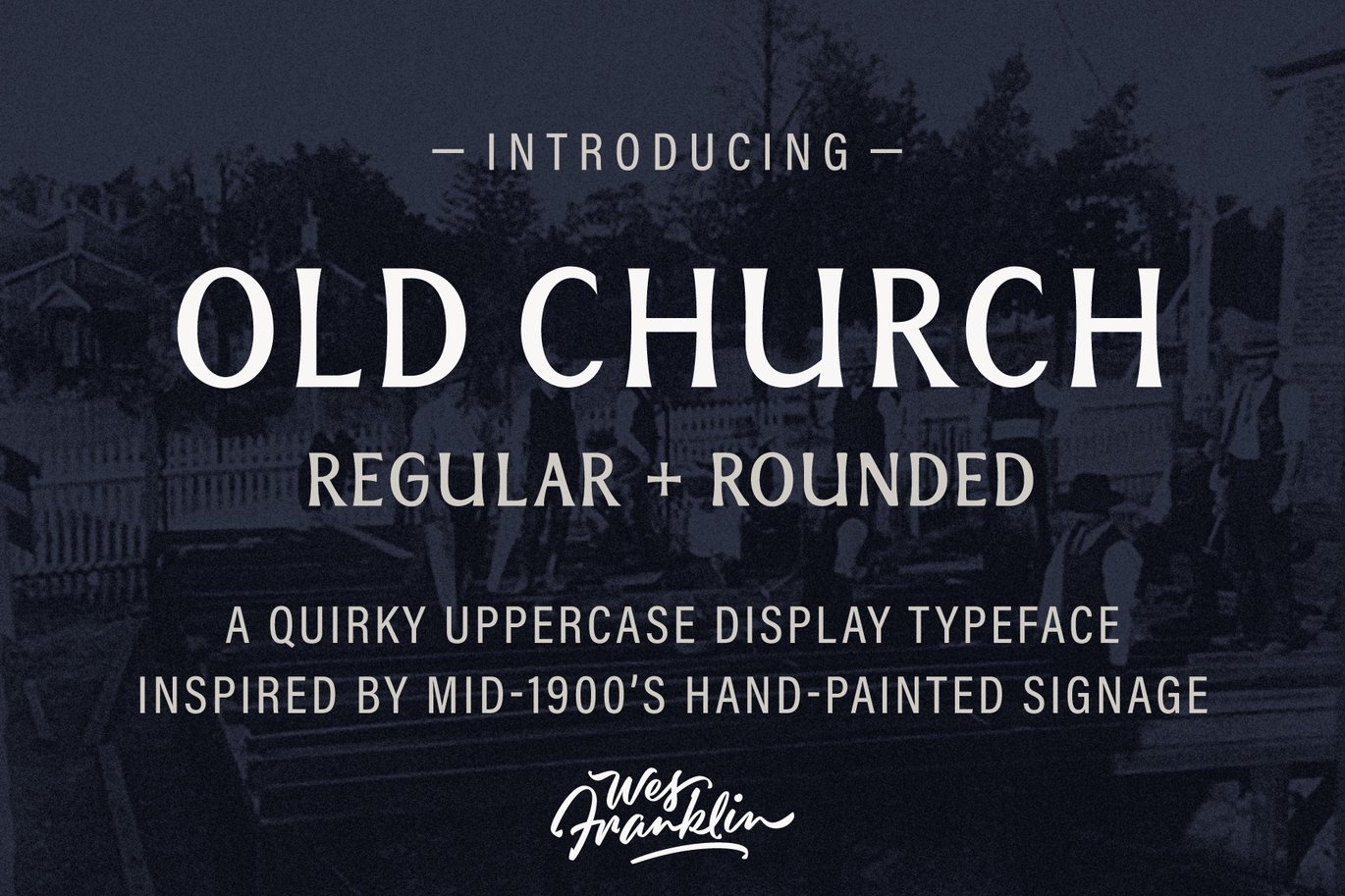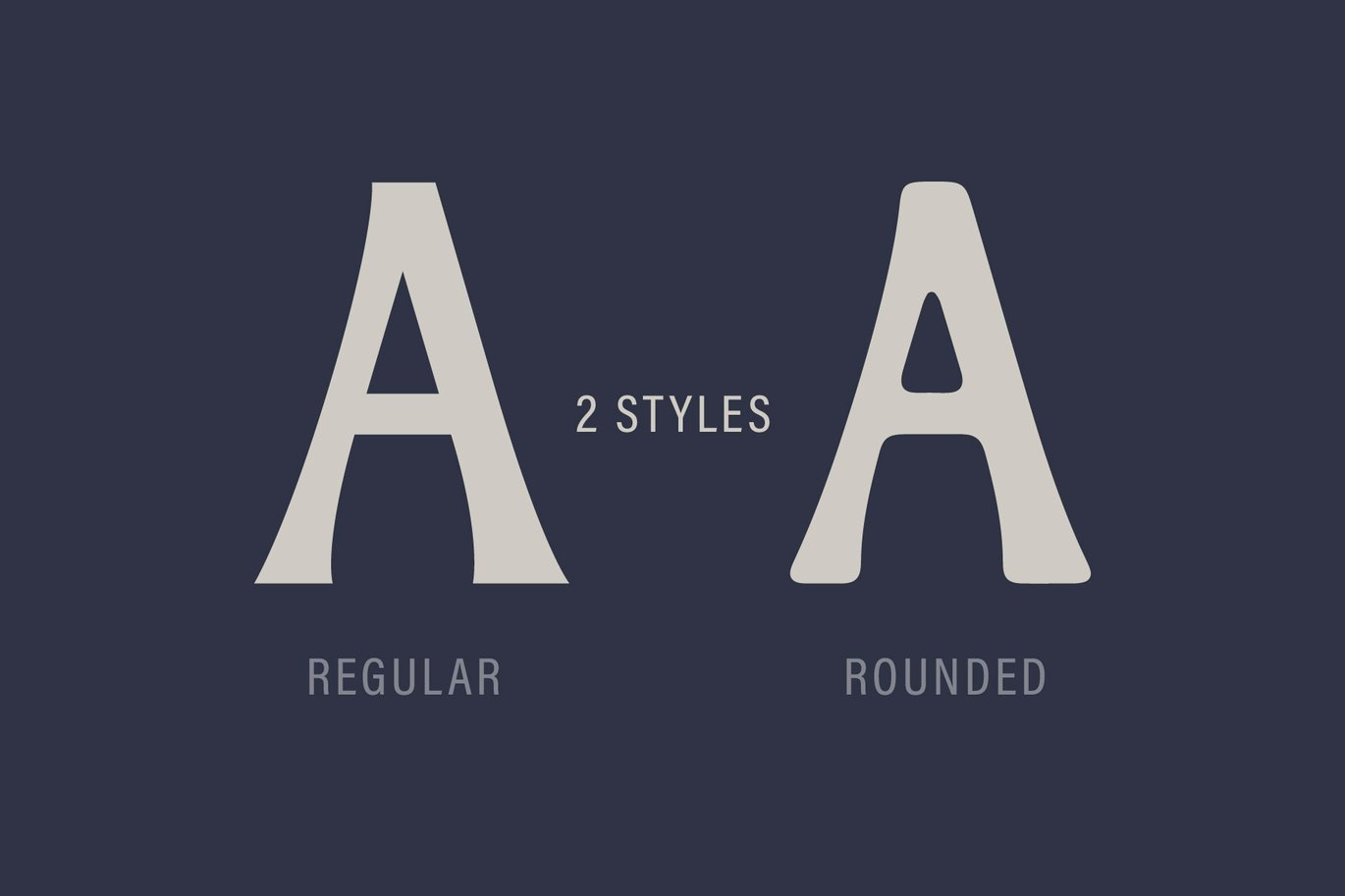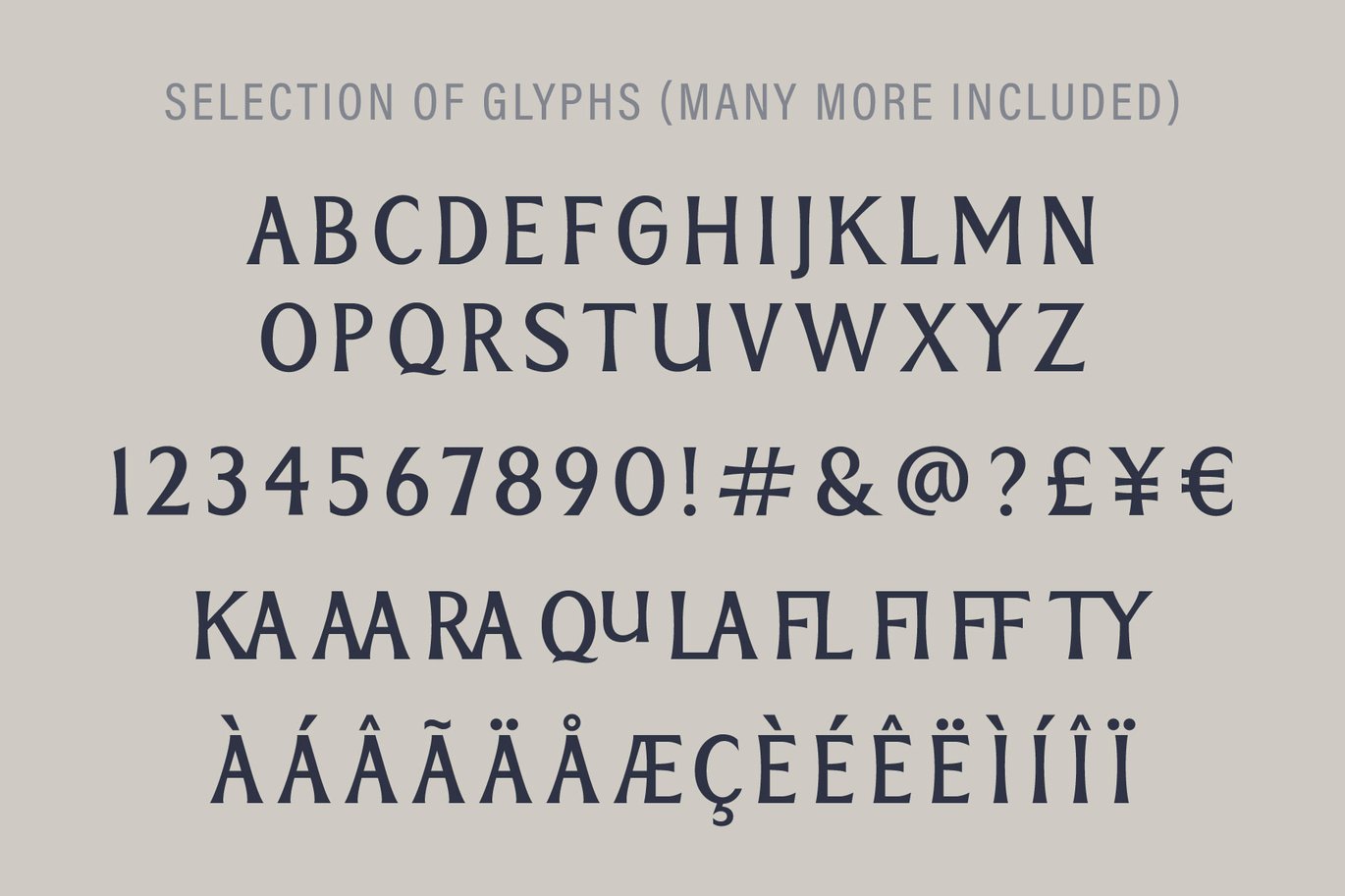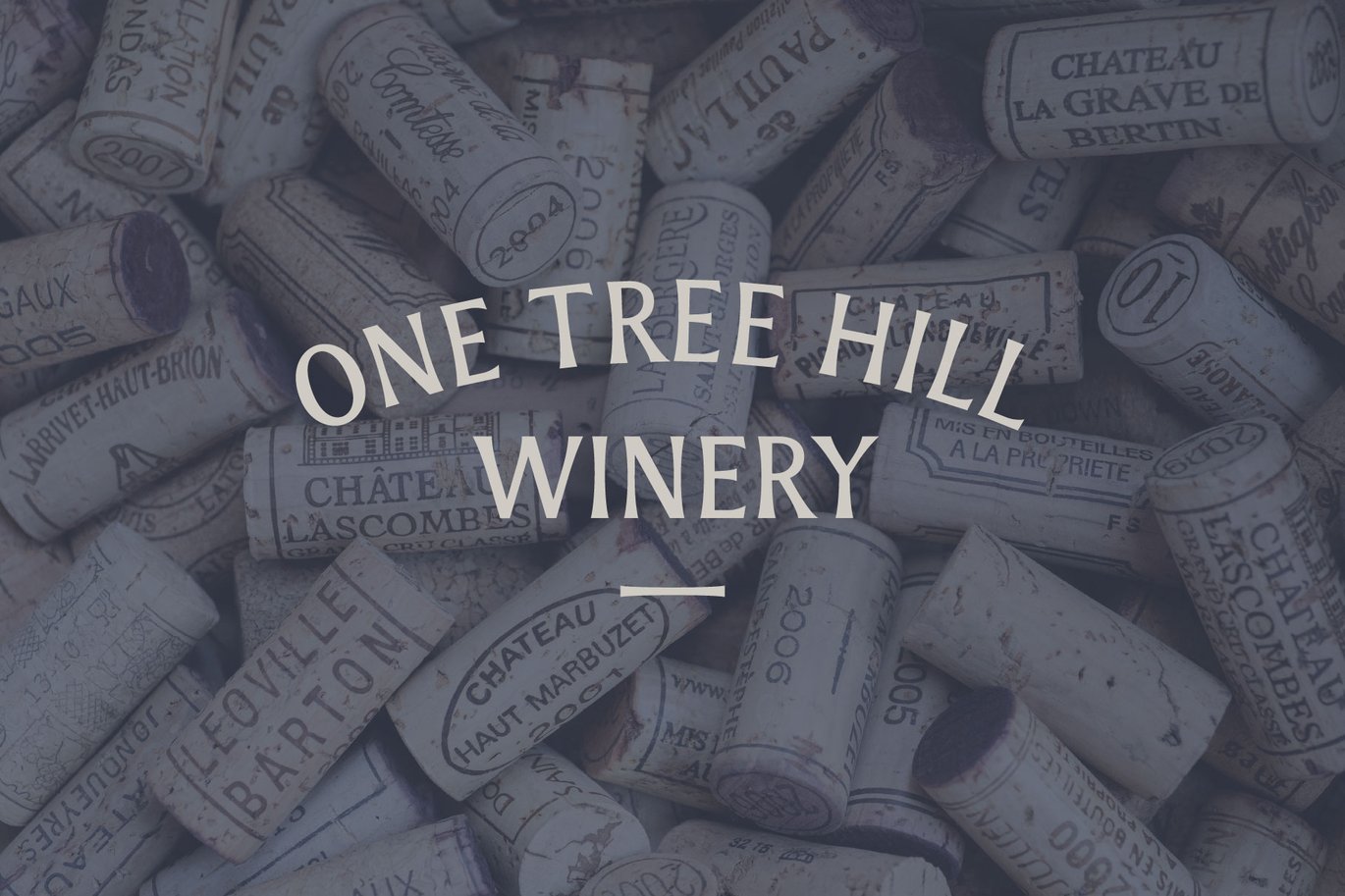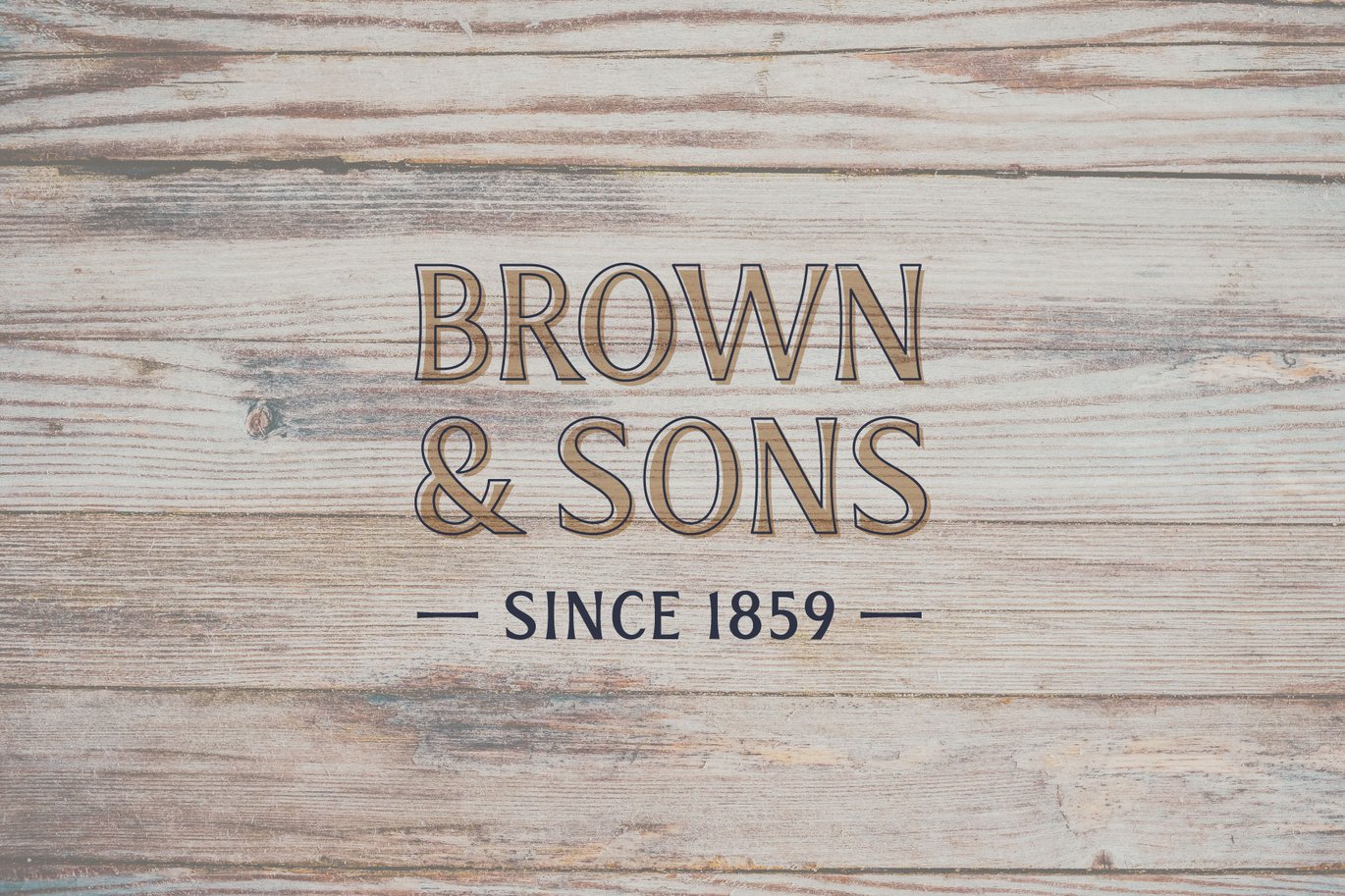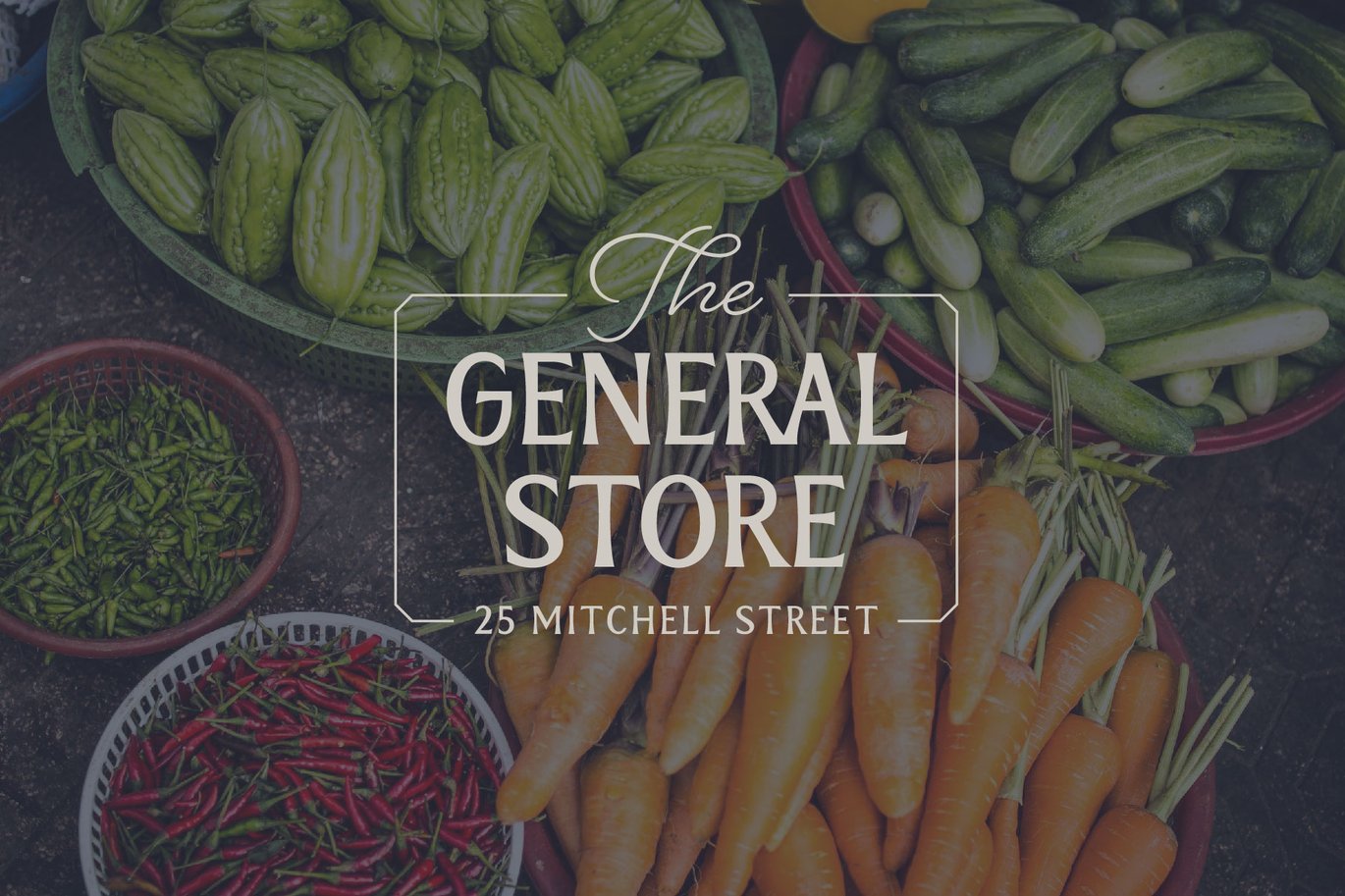
Old Church – Serif Display Font
Old Church is a quirky uppercase display typeface in two styles – Regular and Rounded.
The letterforms are inspired by an old hand-painted church sign found in Bendigo, Australia. This style of lettering was common through the mid-1900s.
Old Church is the perfect font for logo and brand identity design. Its quirky characteristics are subtle but memorable. The last three preview images above give you an example of Old Church in use.
MULTILINGUAL: Currently, Old Church supports Latin-1 Supplement, but I will be adding more in the near future.
LIGATURES & ALTERNATES: Old Church includes a collection of ligatures and alternates to make it even more unique.